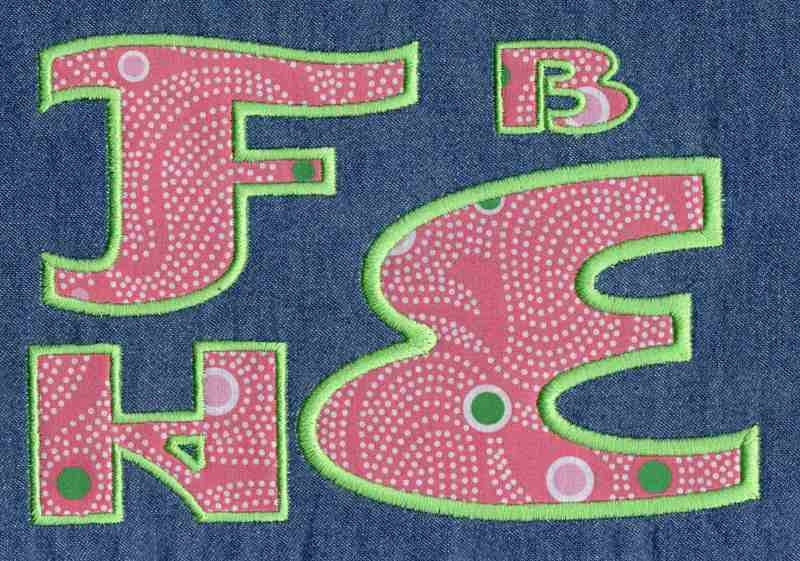
438 Esquire Applique Font
Esquire Applique Font comes in 1", 2", 3" and 4" heights based on the capital "A". All sizes are included in the purchase price and include uppercase letters, lowercase letters, numbers and four punctuation marks. Characters are much wider than they are tall; Some characters in the 2" set exceed standard 4x4 hoop limitations and some characters in the 3" and 4" sets exceed standard 5x7 hoop limitations.